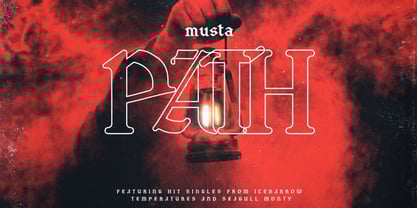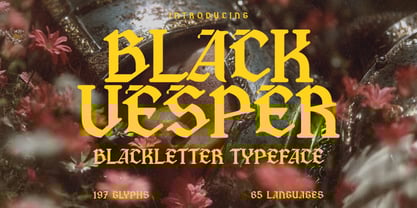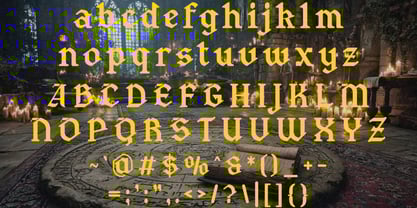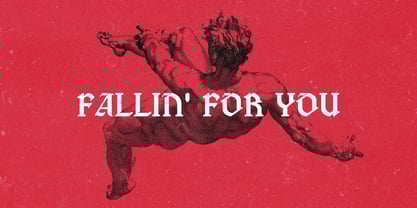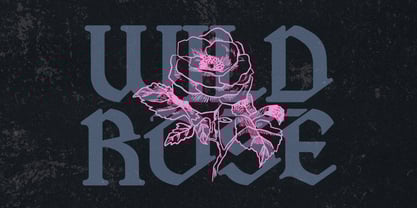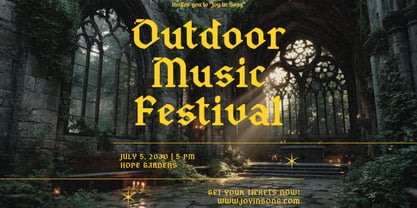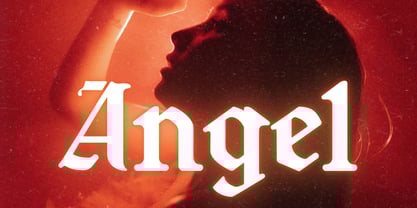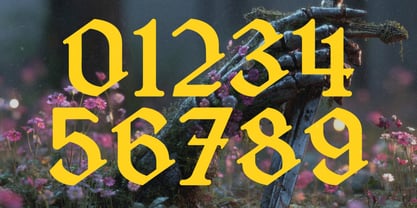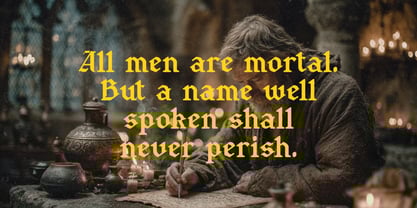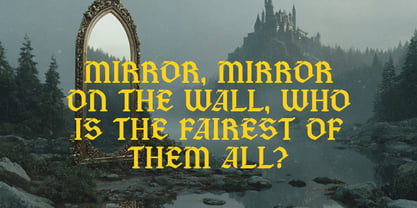
Black Vesper
Step into a world where shadows whisper, legends awaken, and ancient runes pulse with forgotten power. Black Vesper is not just a typeface, it’s a summoning.
Crafted with precision and reverence for medieval form, this gorgeous blackletter font channels the spirit of illuminated manuscripts, battle-worn banners, and forbidden tomes. With 197 glyphs and support for 65 languages, Black Vesper speaks in many tongues, ready to breathe life into your fantasy worlds, epic video game titles, mythical branding, and dark storytelling projects.
Its sharp serifs and elegant curves strike a perfect balance between the arcane and the contemporary, perfect for scrolls, UI screens, logos, book covers, or anything that demands a touch of the extraordinary.
Let your work echo like an incantation through time. Invoke Black Vesper.